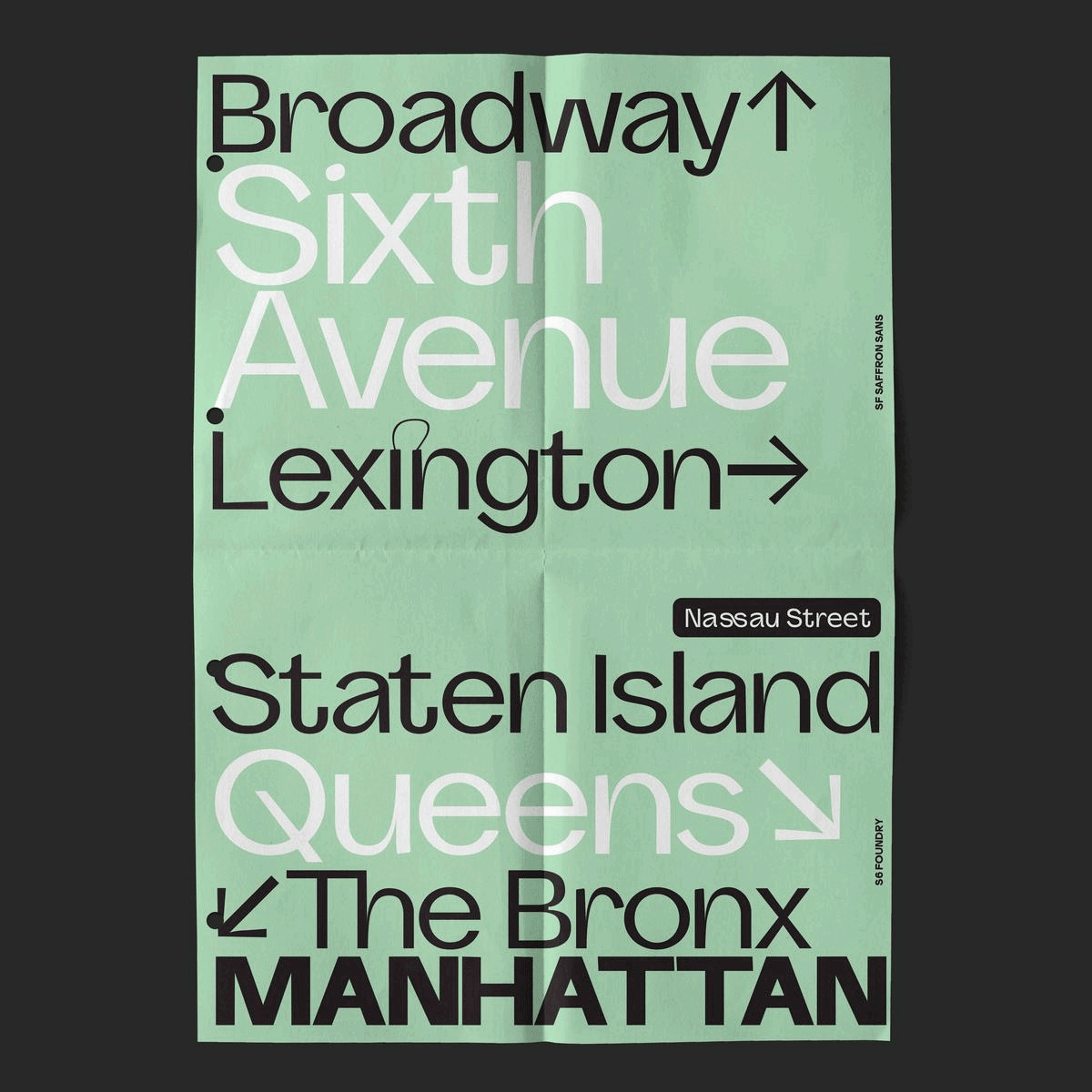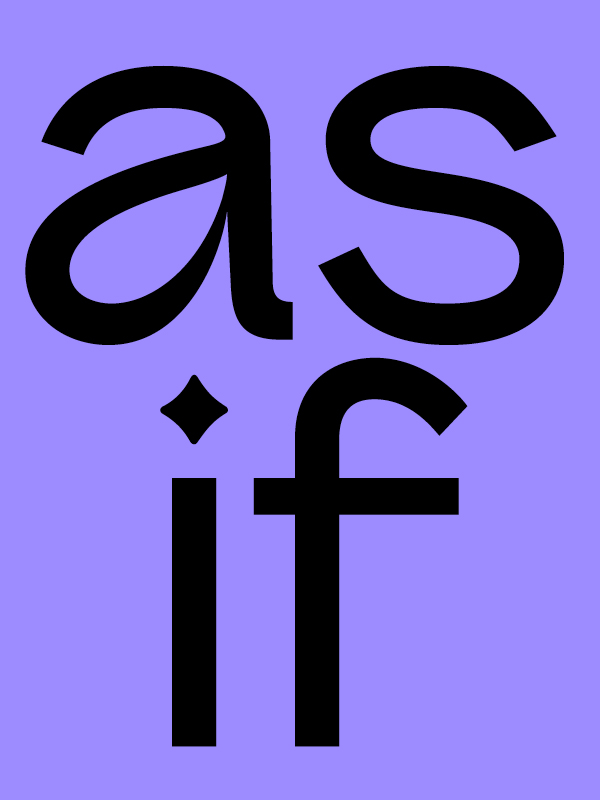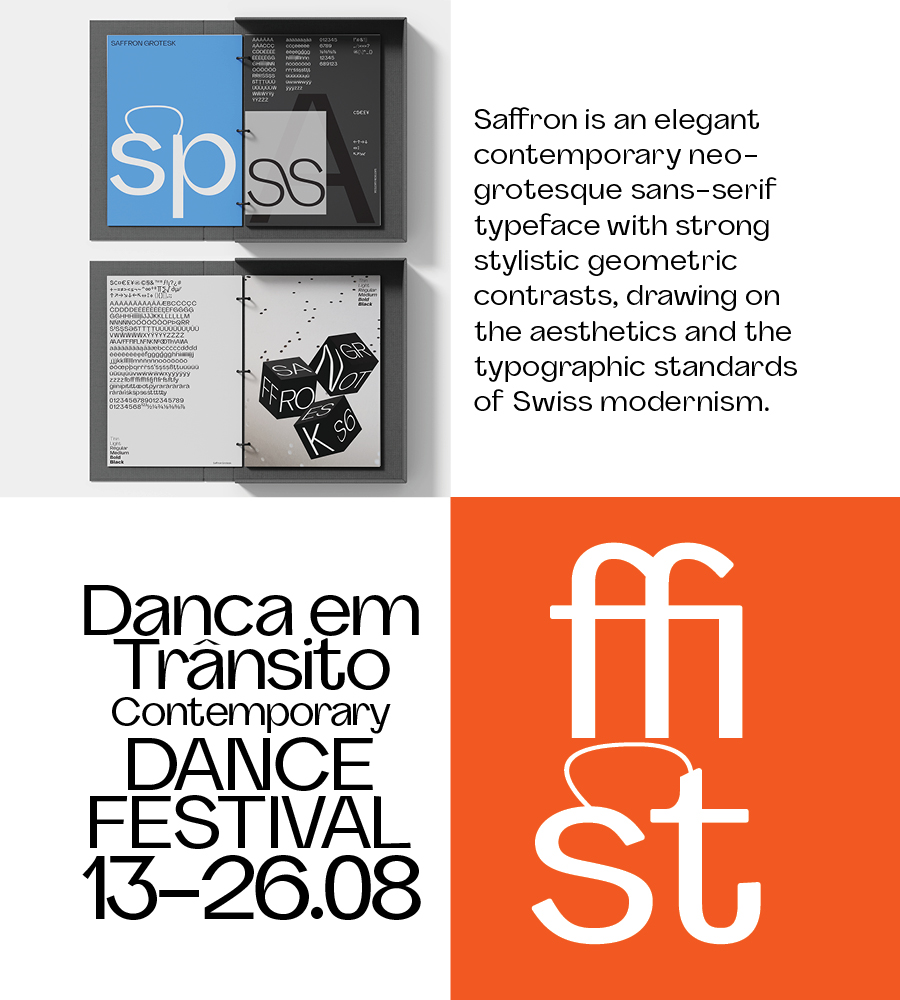
Saffron is an elegant contemporary neo-grotesque sans-serif typeface with strong stylistic geometric contrasts, drawing on the aesthetics and the typographic standards of Swiss modernism. The distinctive wide-open stance was designed to give the right visual consistency for branding and communications. This authentic and original typeface represents the shifting contemporary aesthetics.
Saffron Grotesk supports up to 87 different languages such as English, German, French, Turkish, Polish, Kurdish (Latin), Azerbaijani (Latin), Romanian, Dutch, Hungarian, Kazakh (Latin), Serbian (Latin), Czech, Swedish, Belarusian (Latin), Croatian, Slovak, Finnish, Danish, Lithuanian, Latvian, Slovenian, Irish, Estonian, Basque, Luxembourgian, Icelandic, and Vietnamese in Latin and other scripts.